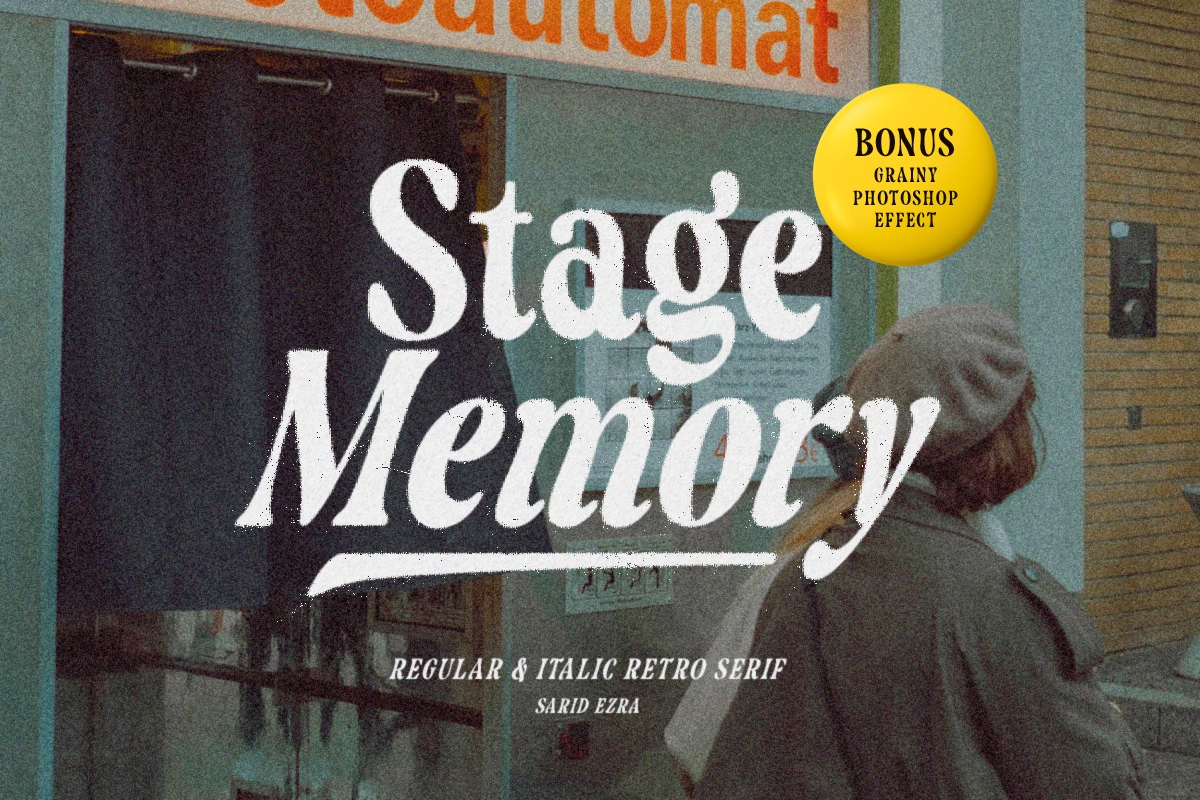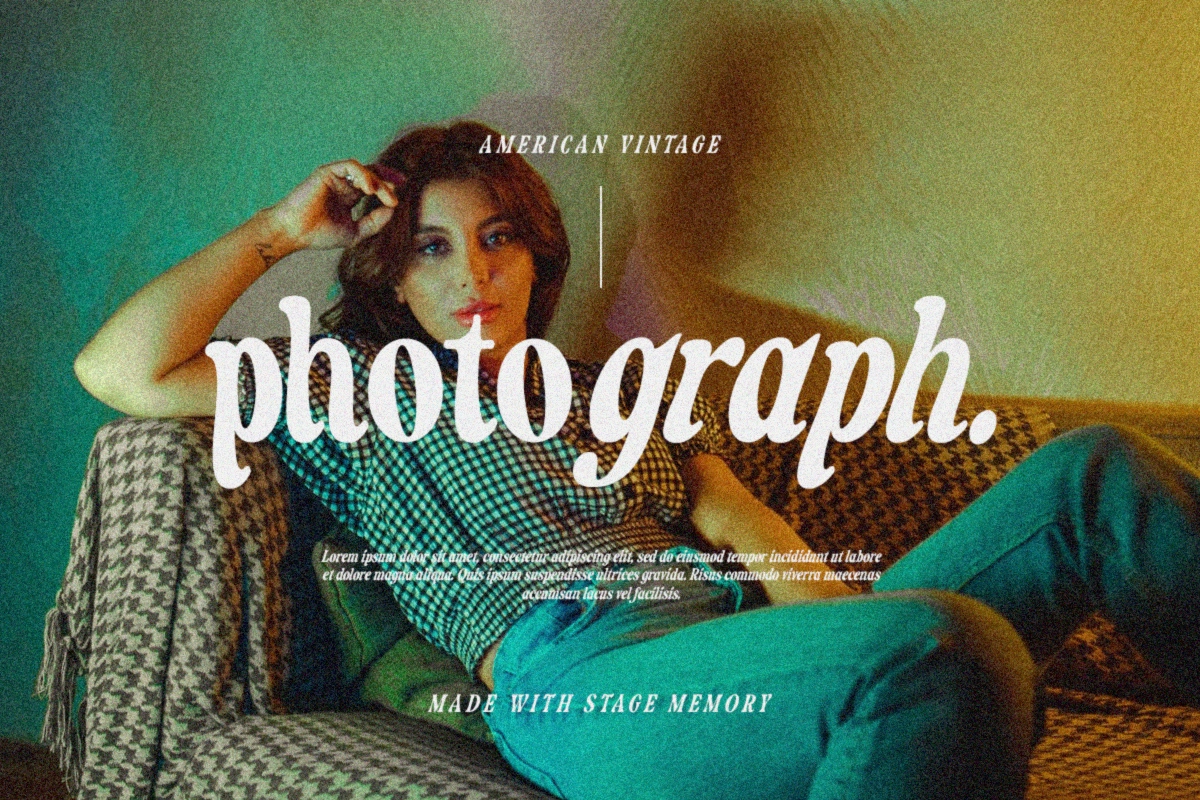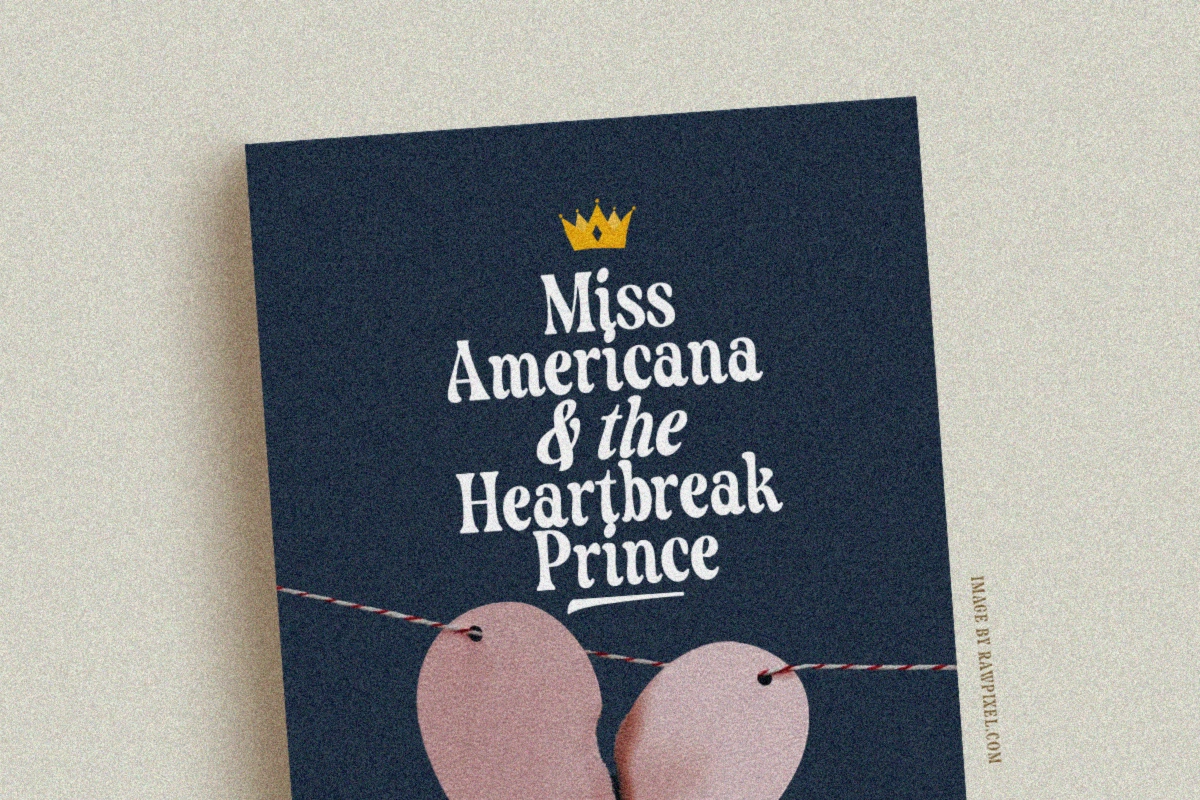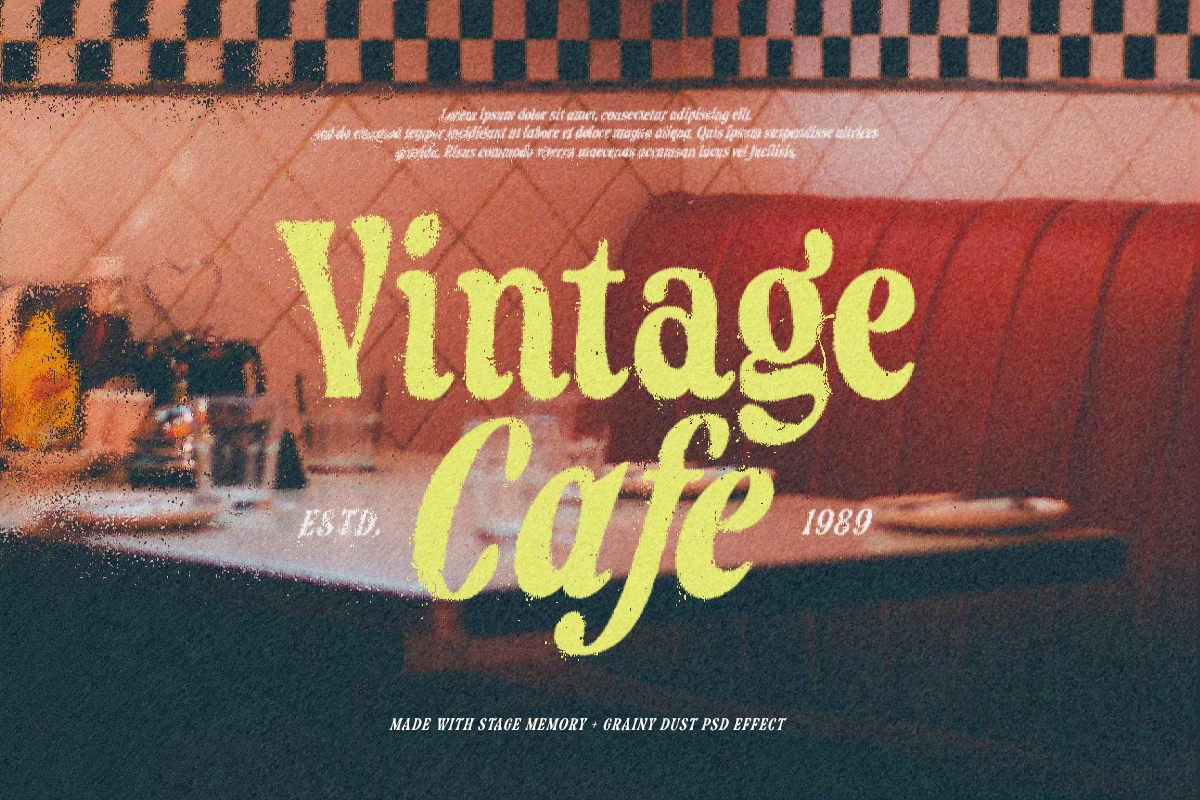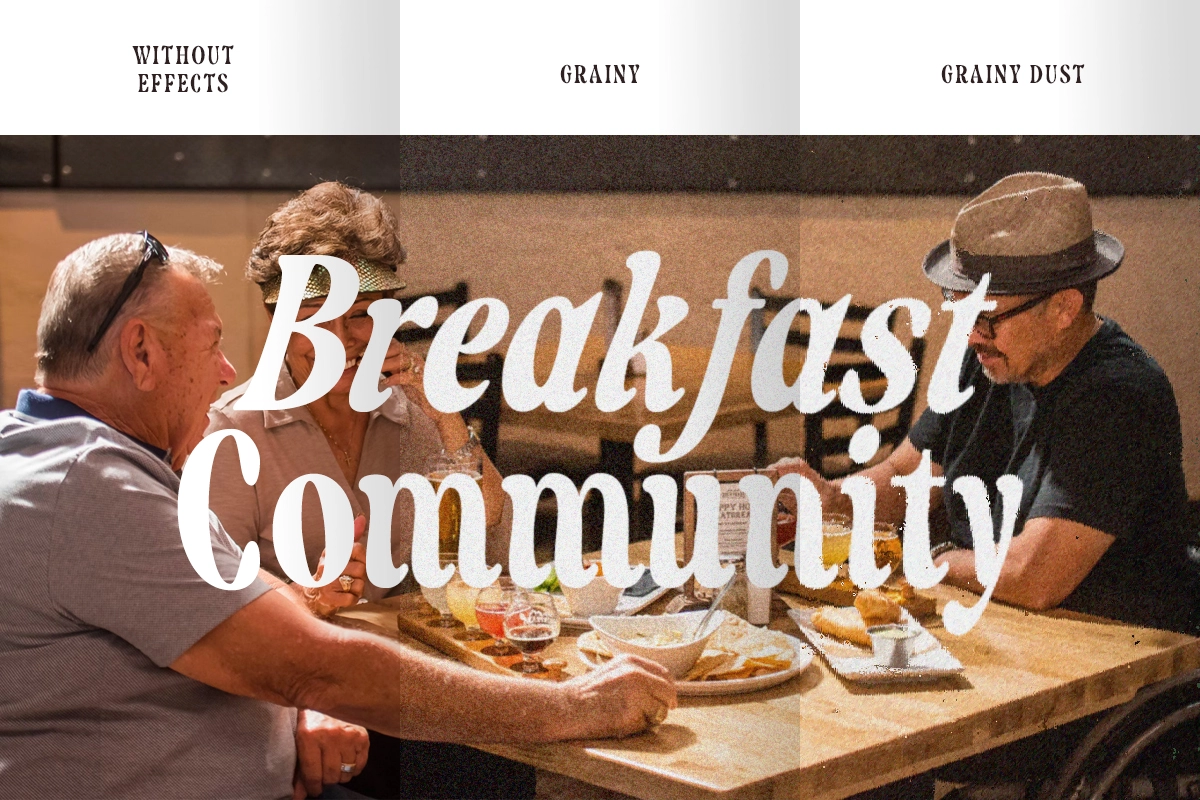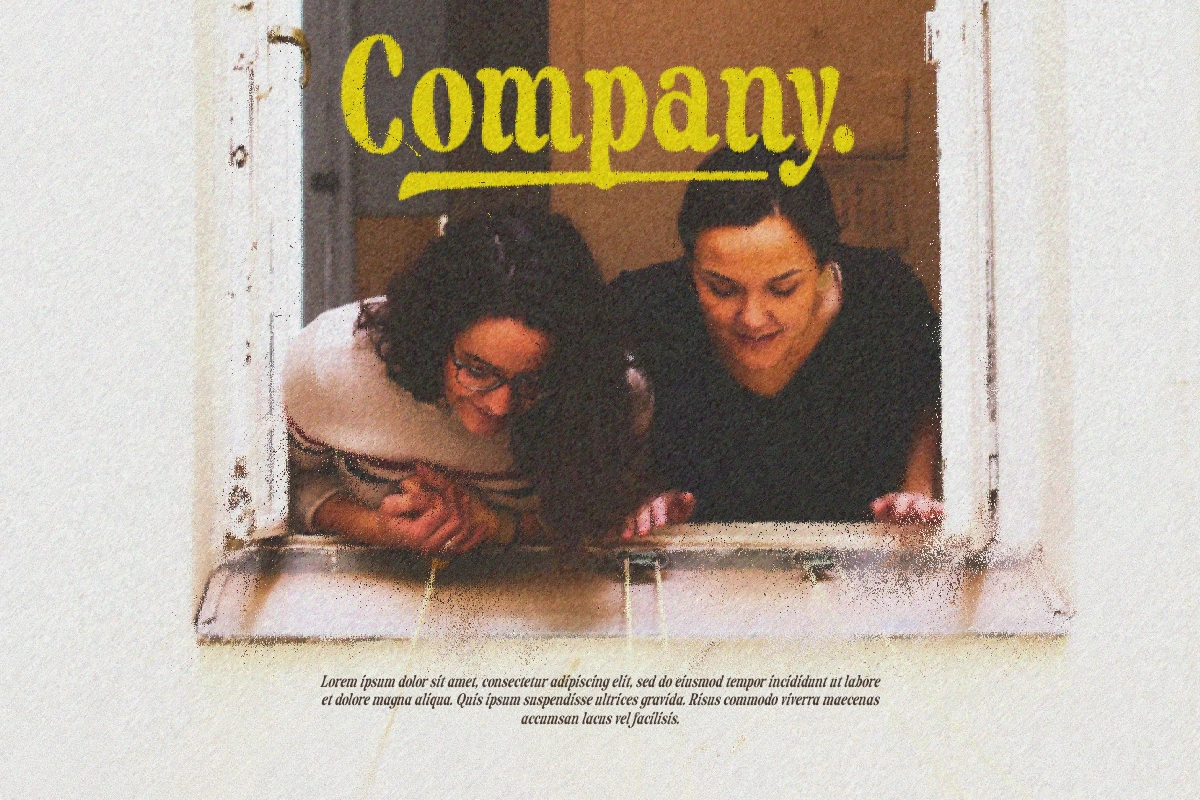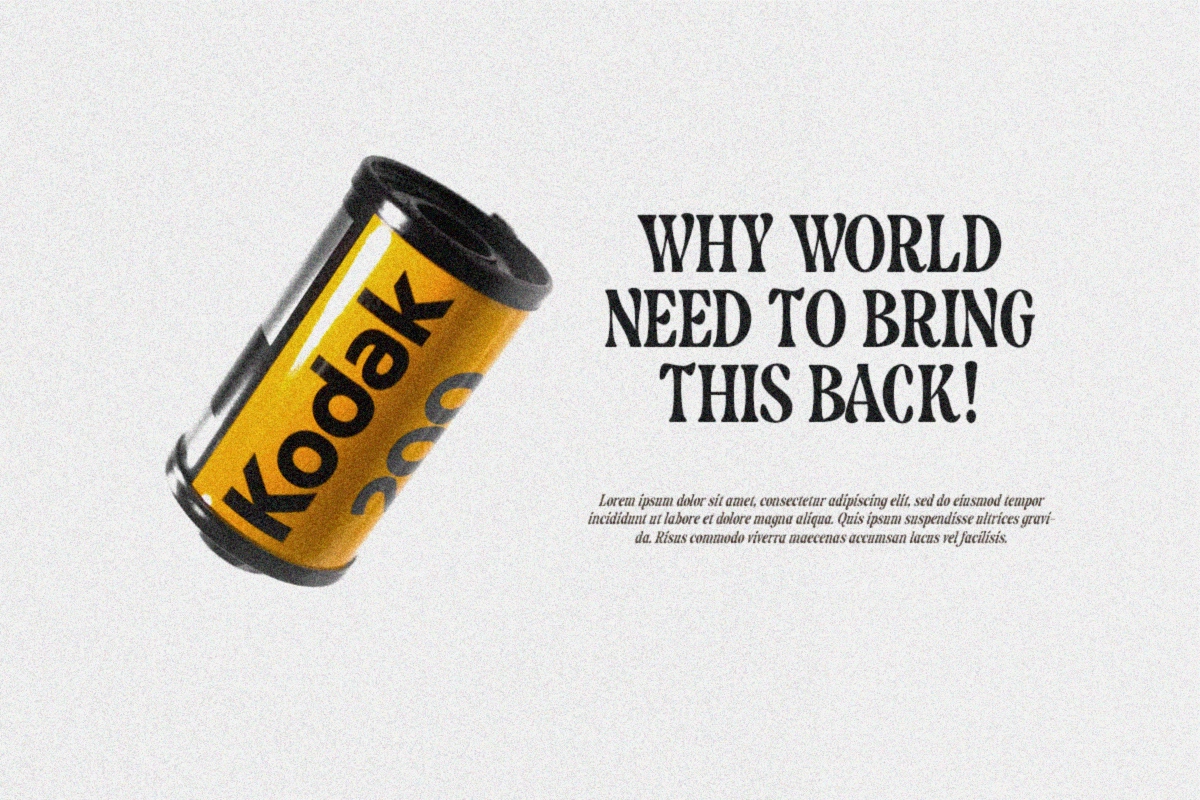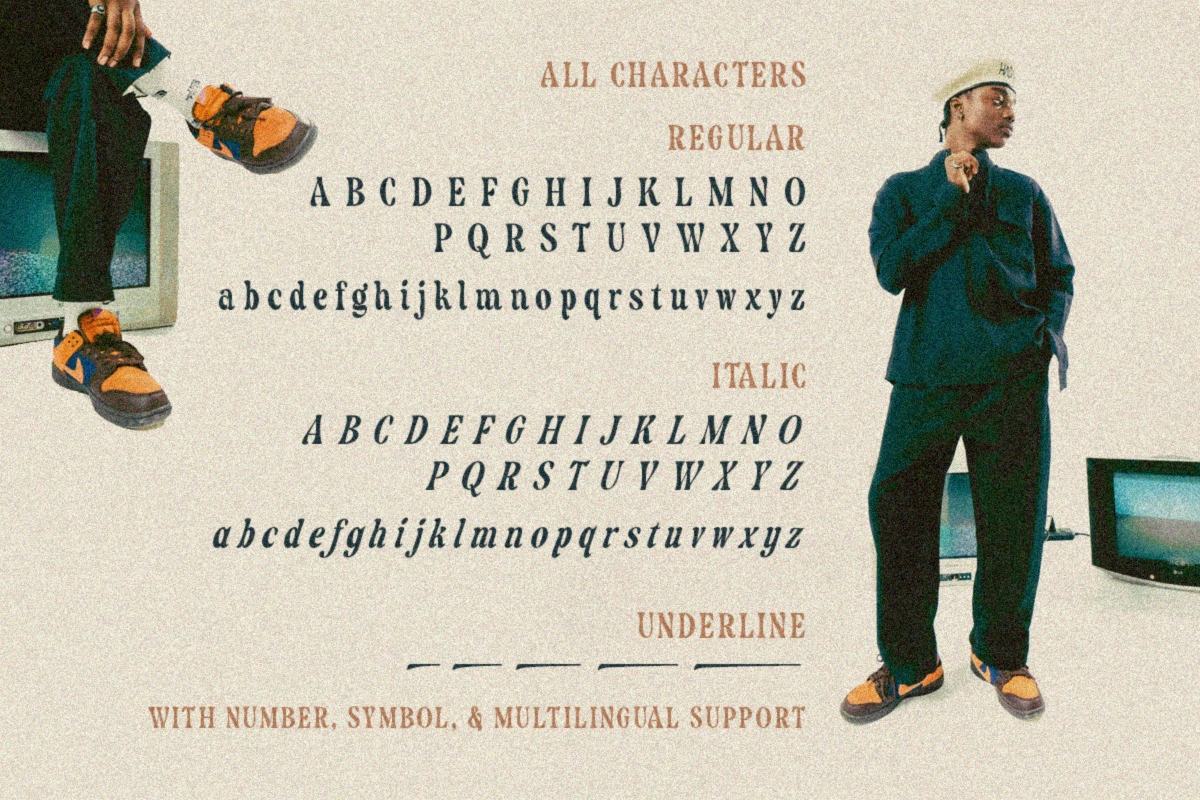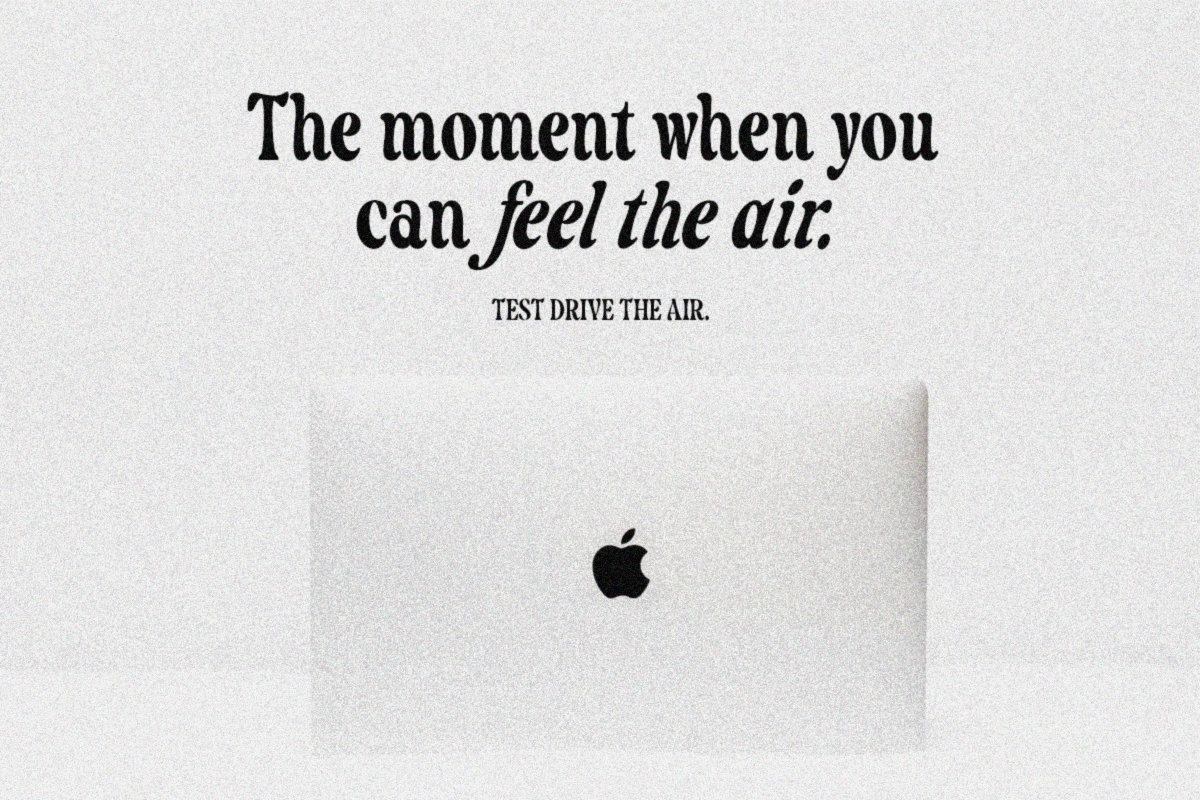
Stage Memory Retro Font
Stage Memory is a retro and soft bold serif with regular and italic style that will make your presentation or logo even more stunning with vintage feels! This font will make your project looks retro, chic, and presentable. You can use this font for poster, event, or your social media post. Stage Memory also support Multi Language.
You can access the underline just from ligature of opentype feature, just type underline + number(1-3) in the middle of the text for example Mem_2ory. In additional, you will get two Photoshop effects that will make your project even more vintage, retro, and nostalgic!